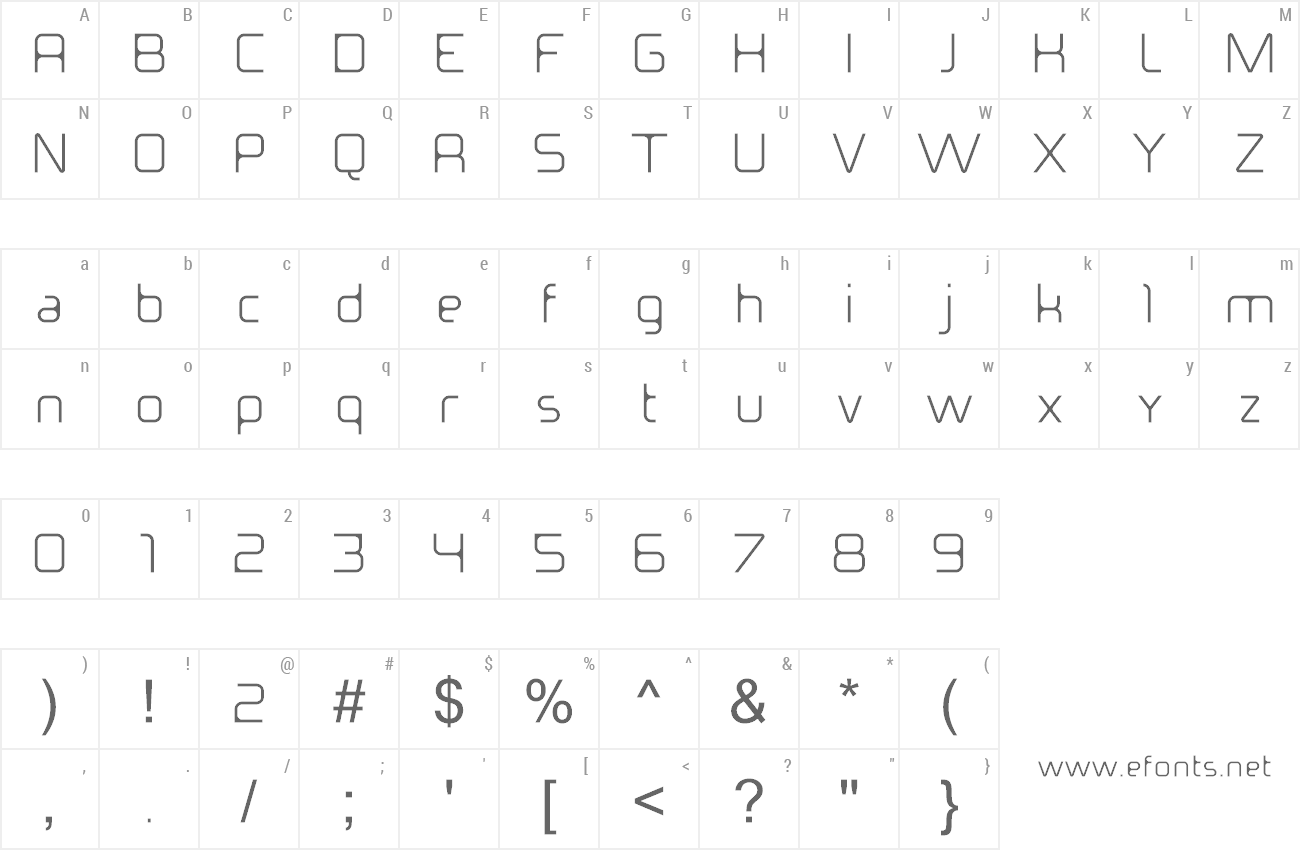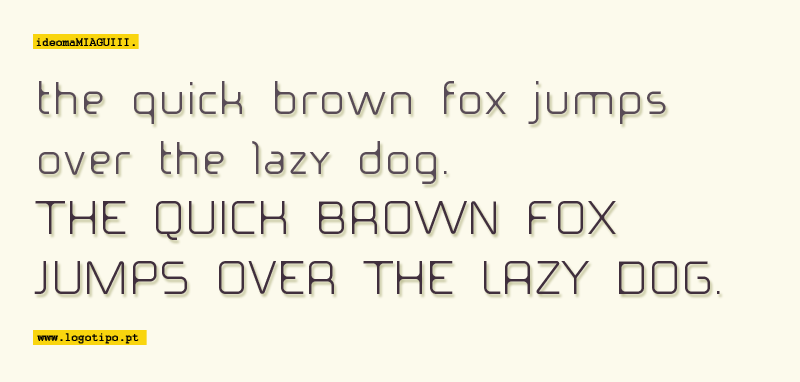
| Font name: | Ideoma Miaguiii |
| Author: | Ideoma |
| Note by Ideoma | |
The miaguiii typeface was designed for a fashion designer, it's a very simple light type with some personality. Please contact for commercial use. Respect our work. |